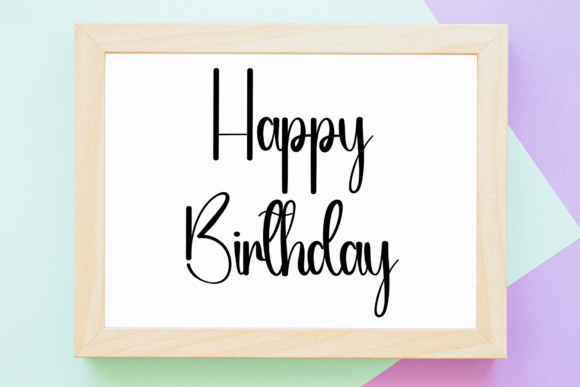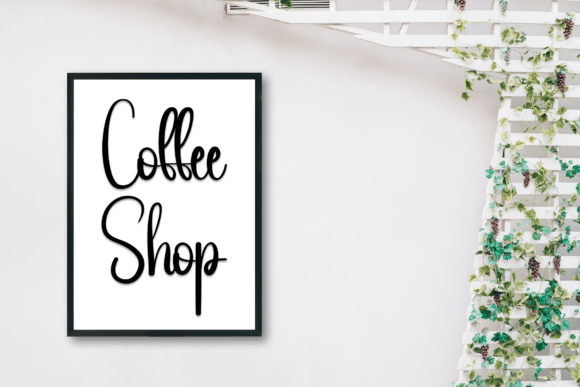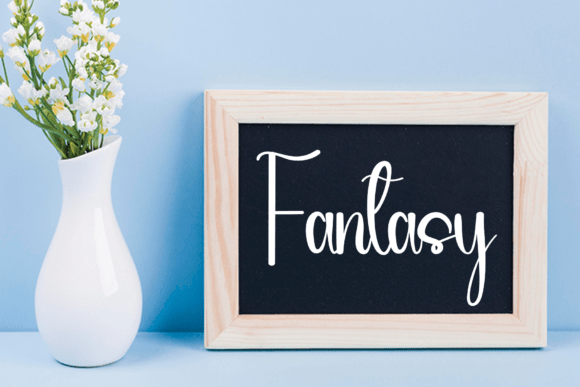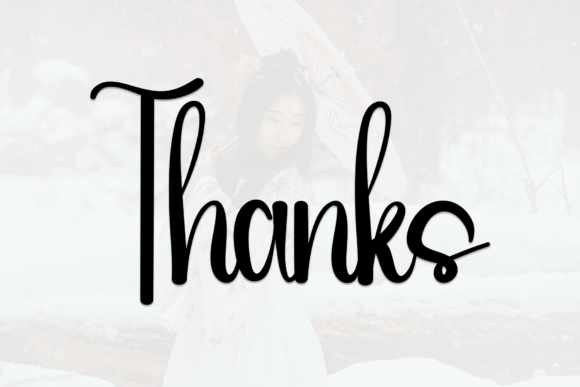
The Cute Newyear Font: A Fresh Take on Elegant Design
I’ll never forget the time I was working on a luxury brand’s wedding invitation suite, and I just couldn’t find the right font to tie everything together. The design was sleek, the colors were stunning, but the font I was using just felt off. It was too formal, too boring, or just not elegant enough. That’s when I stumbled upon the Cute Newyear font, and it completely transformed my design. In this article, I’ll share my love for this beautiful handwritten font, its features, and how to make the most of it in your designs.
An Honest Review of Cute Newyear
- ✨ The relaxed and sporty feel that makes it perfect for luxury brands that want to appear casual and approachable.
- ✅ The elegant, yet casual vibe that works beautifully for wedding supplies, greeting cards, and marketing promotions.
- 💕 The handwritten, marker-like quality that adds a touch of whimsy to any design.
While Cute Newyear is an amazing font, there are a few things to keep in mind:
- 🤔 It may not be the best choice for very formal or traditional designs, as it can come across as too casual.
- ⚠️ Some of the glyphs and stylistic alternates can be a bit finicky, especially in certain software.
The Story Behind Cute Newyear
Cute Newyear was designed with the intention of creating a font that felt both elegant and approachable. The designer wanted to capture the essence of a handwritten font, while still making it suitable for luxury brands and high-end designs. The result is a font that feels both modern and timeless.
Q: What makes Cute Newyear so special?
A: Cute Newyear’s unique blend of elegance and casualness makes it perfect for a wide range of designs, from luxury brands to wedding invitations.